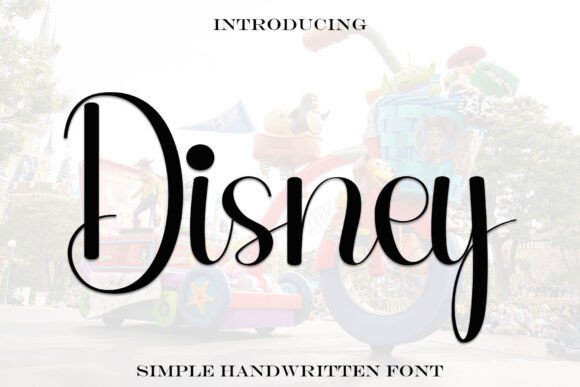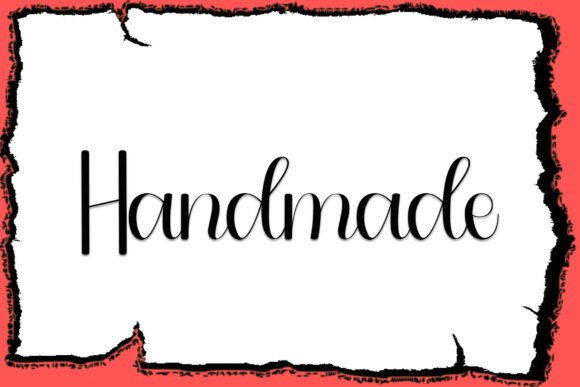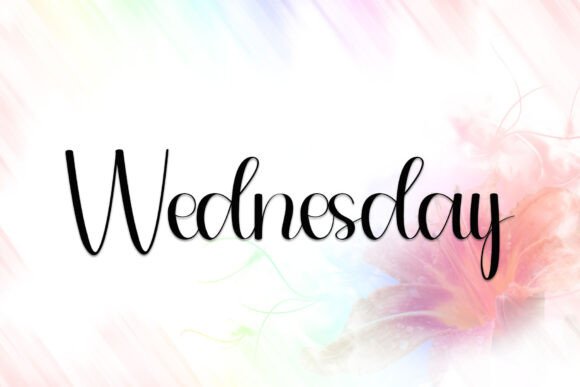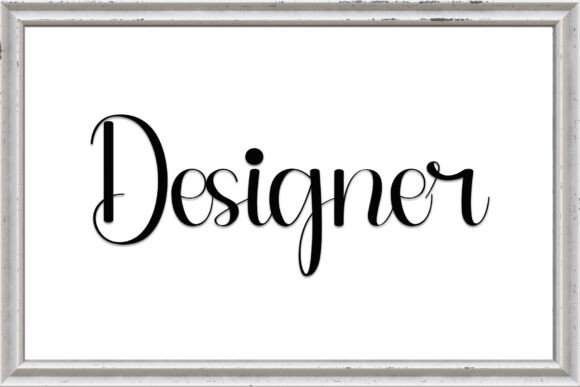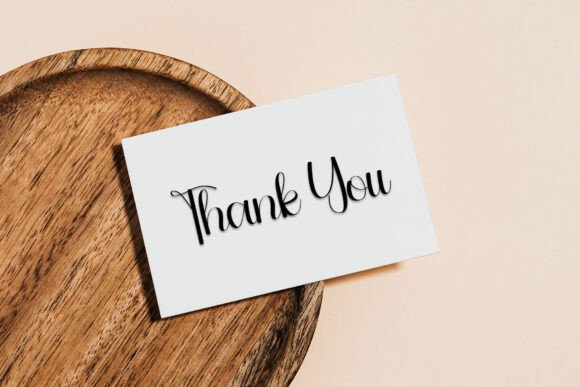
Creating Magic with the Disney Font
Have you ever been browsing through a design inspiration board and stumbled upon a font that instantly transports you to a whimsical world of wonder? For me, that moment happened when I discovered the Disney Font. This enchanting handwritten font is the epitome of whimsy and romance, making it a perfect fit for designers who want to add a touch of magic to their projects.
The Disney Font is a versatile and elegant script font that is designed to evoke feelings of joy and nostalgia. Its gentle curves and flourishes make it perfect for branding, logo design, wedding invitations, and any other project where a touch of elegance and whimsy is desired. Whether you’re a seasoned designer or just starting out, the Disney Font is an invaluable tool in your creative arsenal, allowing you to add a dash of Disney magic to your designs.
Key Features of the Disney Font
- Font Family: The Disney Font is a custom-designed font family, not a standard font, which makes it unique and exclusive to Disney.
- Unique Characteristics: The Disney Font features a distinctive, hand-drawn style with rounded edges and subtle flair, giving it a warm and inviting feel.
Disney Font Review
Overall, the Disney Font is a unique and eye-catching font that is sure to capture the magic of the Disney brand. ✨ One of its greatest strengths is its playful and whimsical feel, which makes it perfect for use in promotional materials, merchandise, and other applications where a touch of Disney magic is needed.
- ✨ Custom-designed to evoke the nostalgia and charm of the Disney brand
- ✨ Available in a range of weights and styles, making it versatile for use in various contexts
- ✨ Can be used in digital and print applications, including logos, branding, and signage
However, there are a few limitations to consider. ⚠️ The font may be too over-the-top for some applications, and its use may come across as kitschy or gimmicky. Additionally, the font’s custom design may make it difficult to pair with other fonts or typography, limiting its versatility in certain contexts.
Overall, I think the Disney Font is a fun and creative choice for designers looking to add a touch of Disney magic to their projects. While it may not be the best choice for every application, it’s sure to be a hit with fans of the Disney brand.
The Disney Font is a playful, cursive font that is perfect for creating whimsical and magical designs. Here are some tips and common use cases for the Disney Font:
Use the Disney Font for:
- Brand logos and